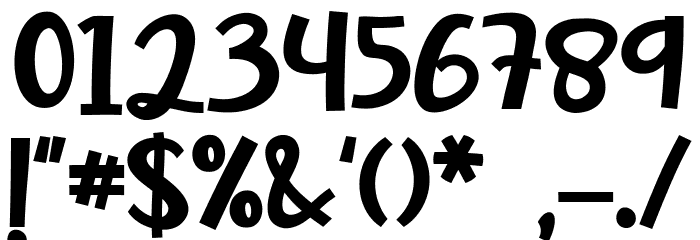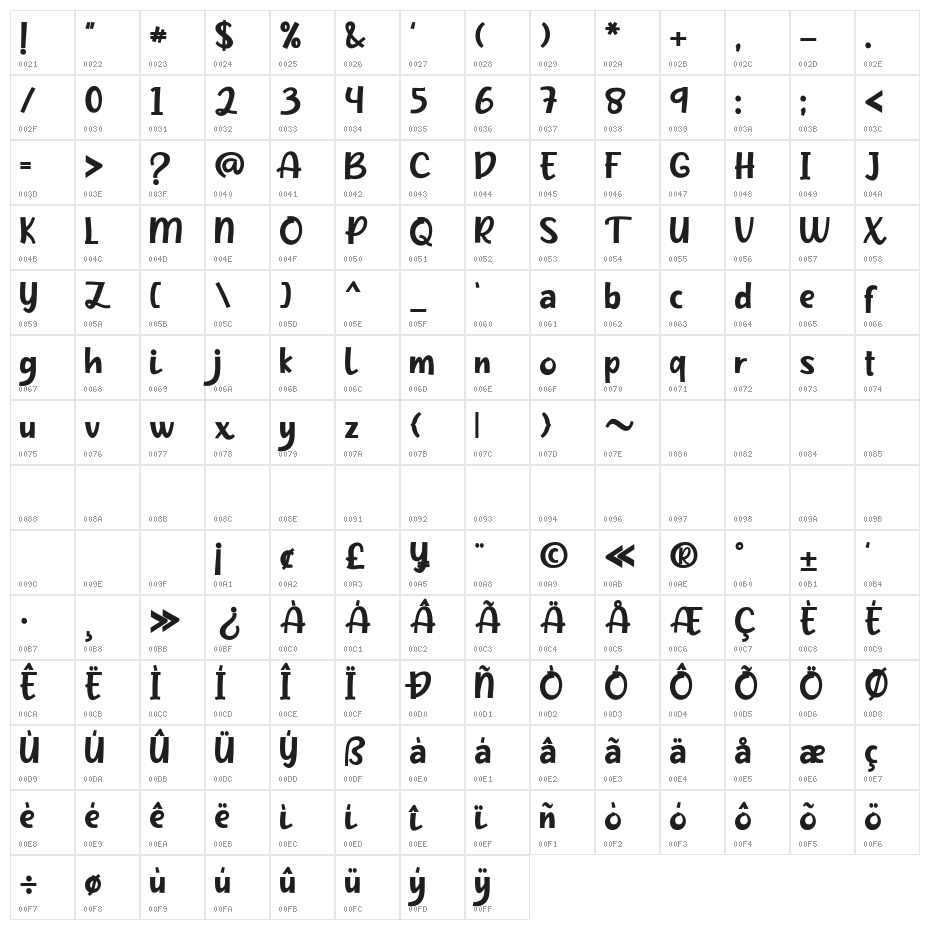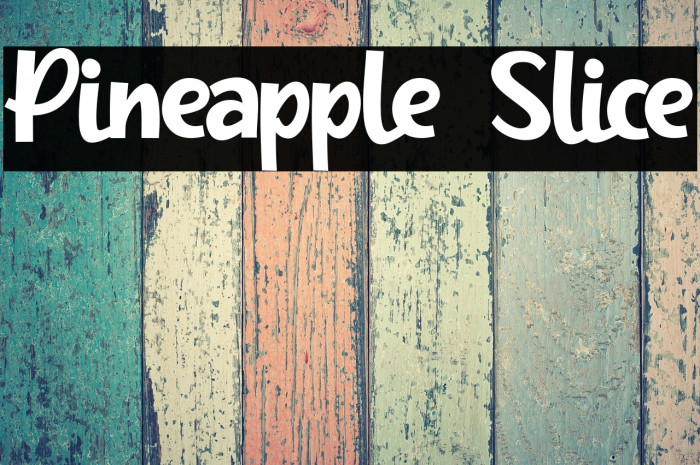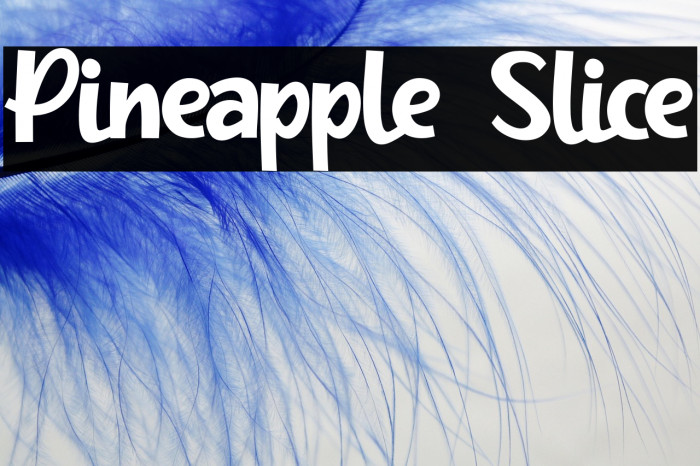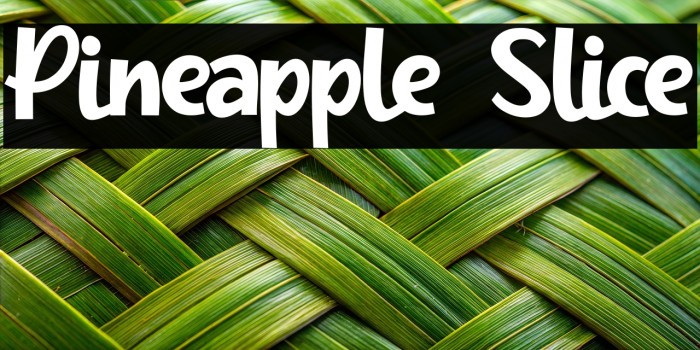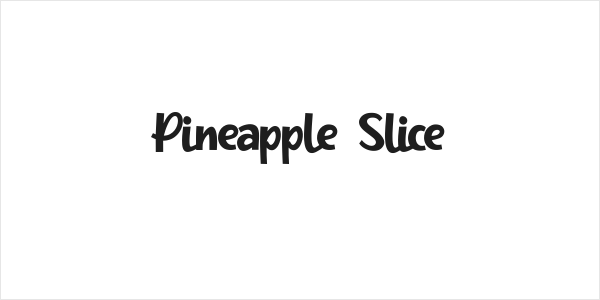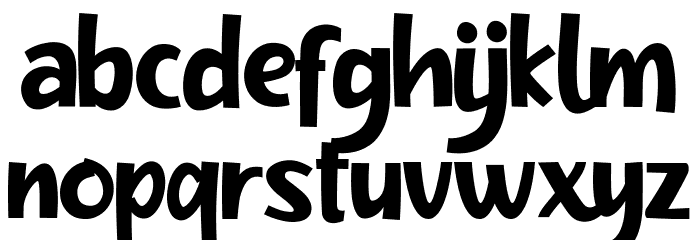
Pineapple Slice Font
Pineapple Slice Description
This font features a playful and whimsical style, characterized by its bold and rounded letterforms. The strokes are thick and consistent, giving it a strong presence on the page. The uppercase letters have a slight slant, adding a dynamic and energetic feel. The lowercase letters maintain a similar style, with some characters like 'g' and 'y' having distinctive loops that enhance its playful nature. The numerals are bold and easy to read, matching the overall style of the alphabet. Special characters are well-integrated, maintaining the same bold and rounded aesthetic. This font is ideal for projects that require a fun and approachable look.
| Proposed Projects | Ideal for children's books, playful branding, event invitations, and creative posters. |